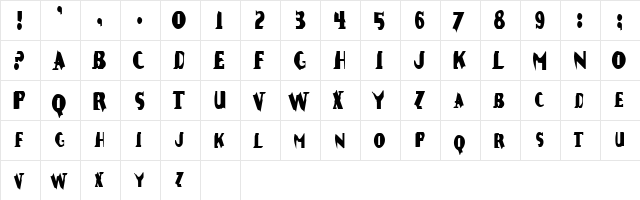
ErosionCondensed Regular
Design Context for ErosionCondensed Typeface
ErosionCondensed is a composed and adaptable typeface that performs quietly and consistently across a wide range of design contexts. The condensed width makes it efficient for tight spaces without sacrificing legibility.